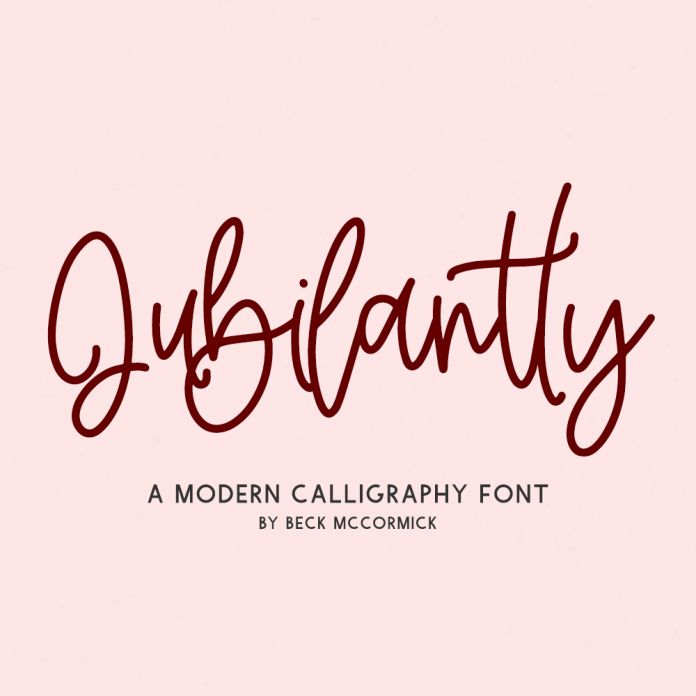
Introducing Jubilantly Script, a handlettered modern calligraphy script. Jubilantly features 26 alternates & 10 ligatures to enhance the handwritten look & feel of your project.
- 26 alternates
- 10 ligatures - bb, dd, ff, ll, mm, nn, oo, rr, ss, tt